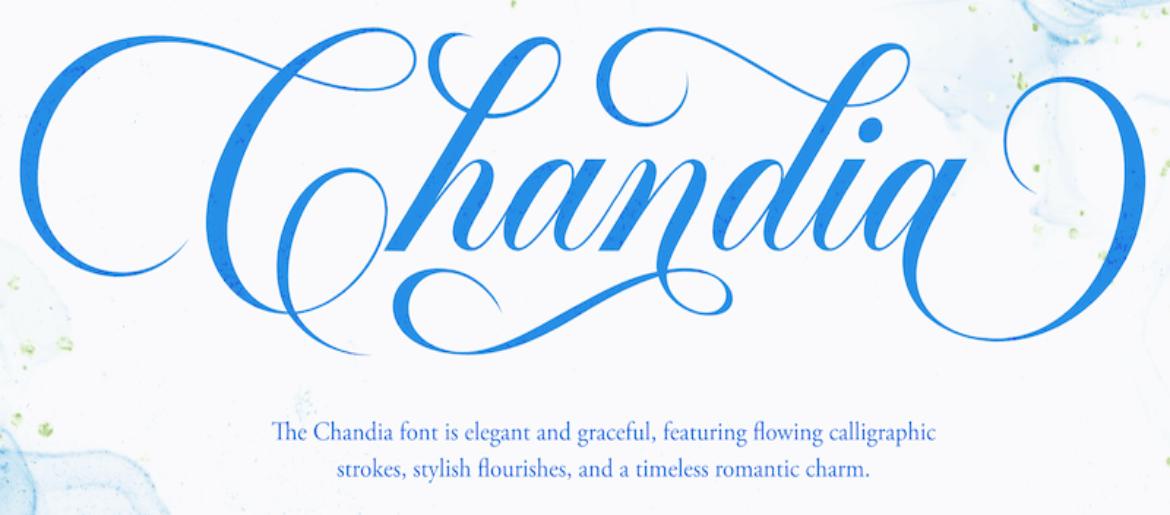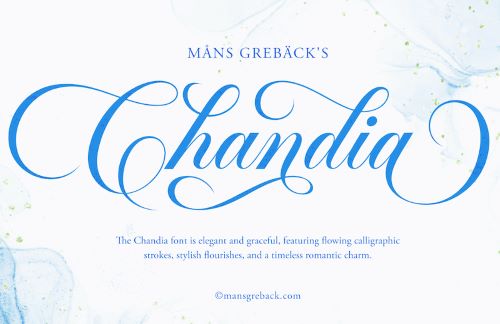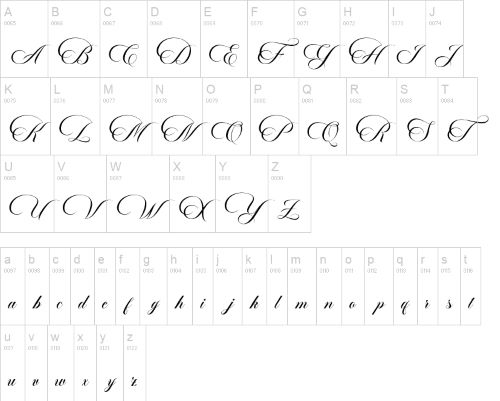
Chandia Font
Chandia Font is a clean, modern handwritten typeface with smooth strokes and a natural, flowing style. Its casual yet elegant appearance makes it perfect for logos, branding, quotes, invitations, and social media graphics. Chandia adds a friendly, personal touch while maintaining a polished and contemporary feel.
Font Name: Chandia
Designer: Måns Grebäck
Style: Calligraphy